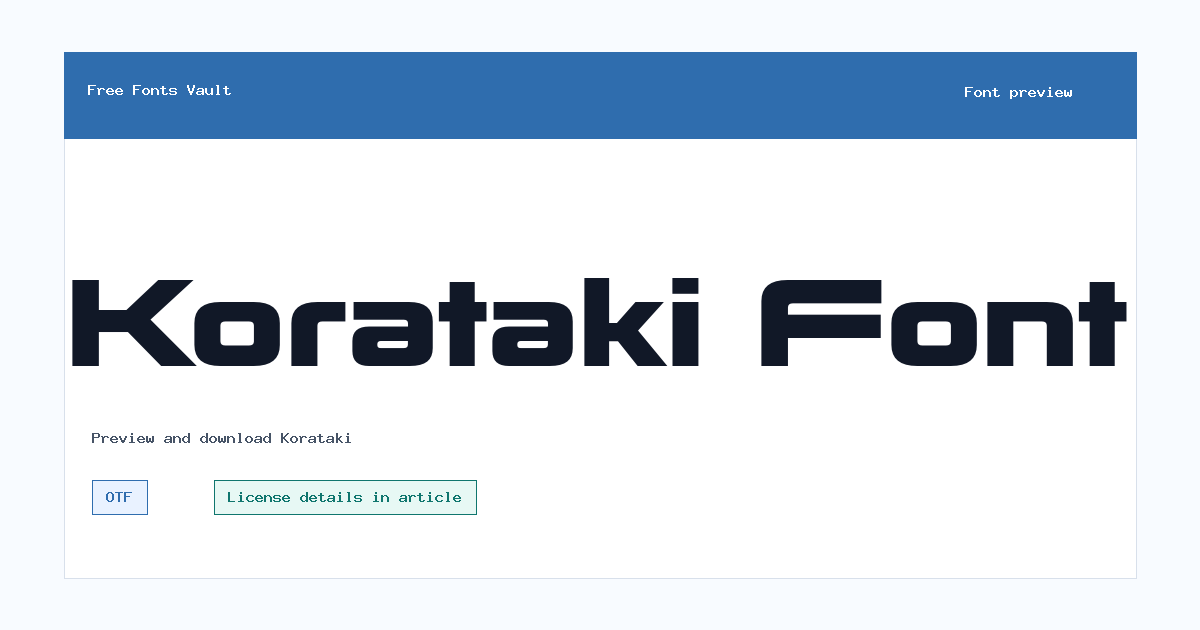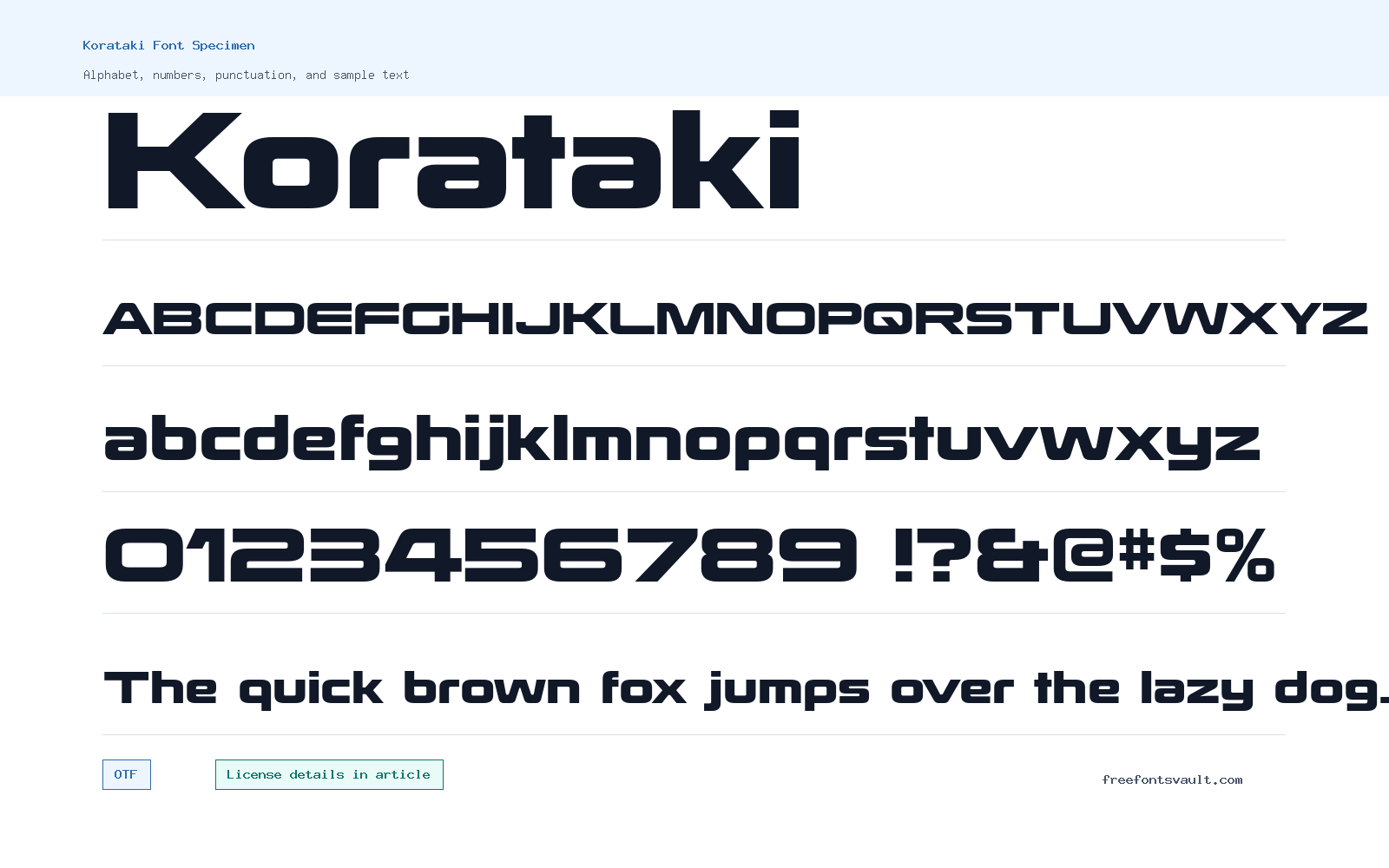
Korataki
- Designer Ray Larabie
- Foundry Ray Larabie
Korataki font.
Korataki is a wide, square industrial sans typeface with a strong technical feel. Its broad shapes, clean corners, and steady strokes make it useful when you want a headline or interface label to feel mechanical, futuristic, and solid.
About Korataki
Korataki was designed by Ray Larabie and is published by Typodermic. The design is described by Typodermic as an industrial sans with ultramodern 1970s roots, square forms, monolinear strokes, and wide proportions. That gives Korataki a firm display voice: compact in detail, but broad and heavy in presence. It works best when the text is short enough for the letter shapes to carry the design, such as a title, logo draft, poster line, label, menu heading, or game screen element.
- Wide, square industrial sans letterforms with clean corners and steady strokes
- Strong display style for short text, titles, UI labels, posters, and tech graphics
- Sci-fi headings and cinematic title cards
- Game UI labels, menus, and HUD-inspired text
- Tech branding concepts and industrial logo drafts
- Posters, signage-style layouts, and event graphics
- Packaging mockups, product labels, and bold display artwork
Korataki is designed by Ray Larabie and associated with Typodermic Fonts.
Use Korataki at display sizes where its square structure is visible. Test spacing carefully in all-caps words, numbers, and short interface labels. For longer copy, use Korataki only for headings and pair it with a simpler text font for readability.
Is Korataki good for body text?
It is better for display use. Its wide, square shapes work well in headings, titles, labels, and posters, but a simpler sans will usually read better in long paragraphs.
Can I use Korataki for a logo?
What kinds of designs suit Korataki?
It suits sci-fi titles, game UI concepts, tech branding, industrial packaging mockups, signage-style graphics, posters, and short cinematic text.